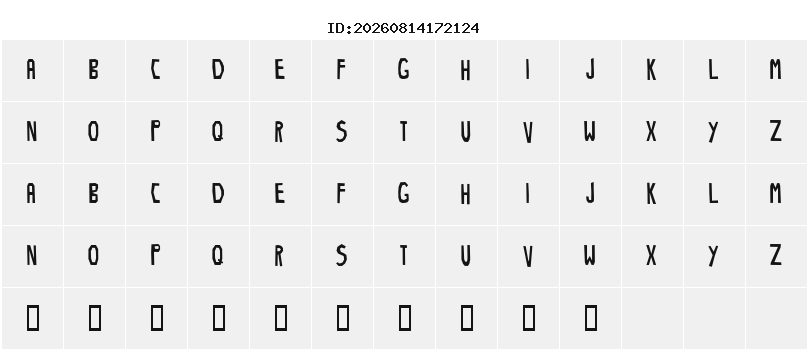
• Font Name: Stinko
• Full Font Name: Stinko
Stinko.ttf is a modern, elegant sans-serif font designed for ultimate readability and visual harmony. Perfect for branding, headlines, web design, and print materials.